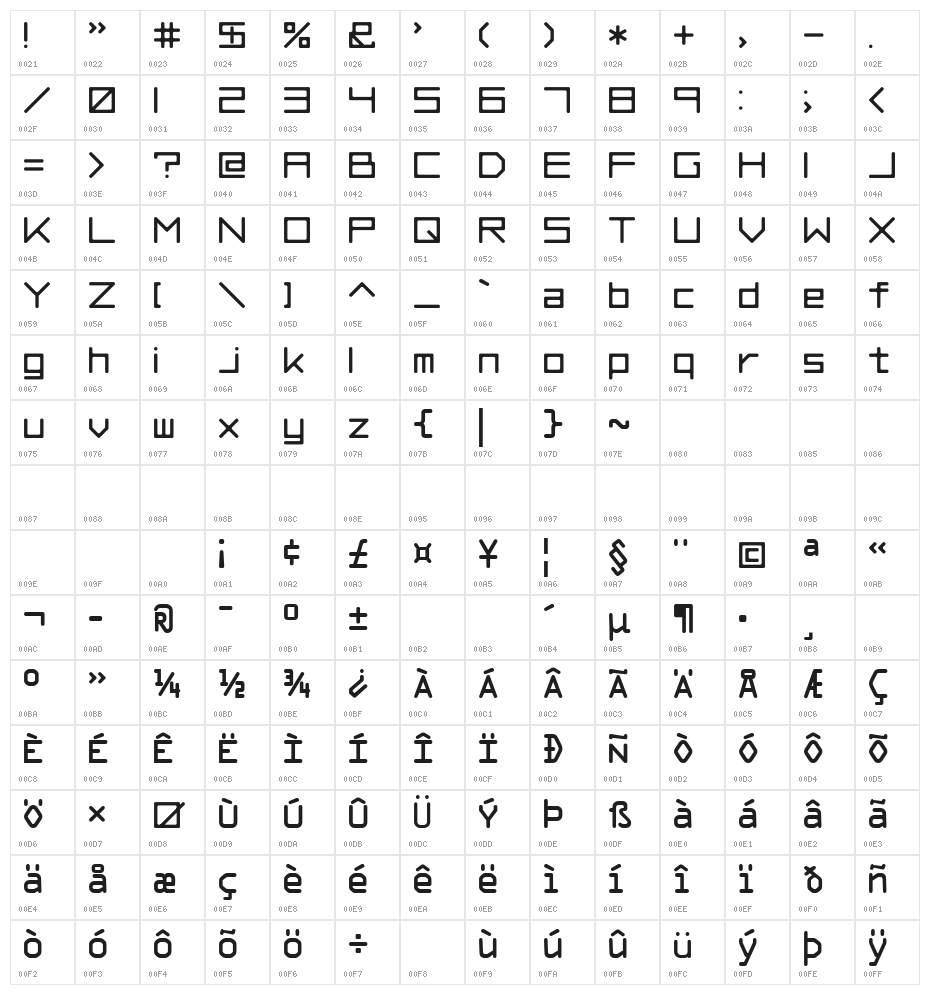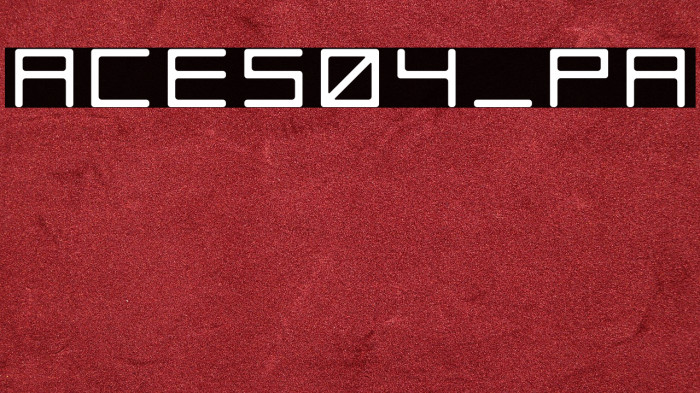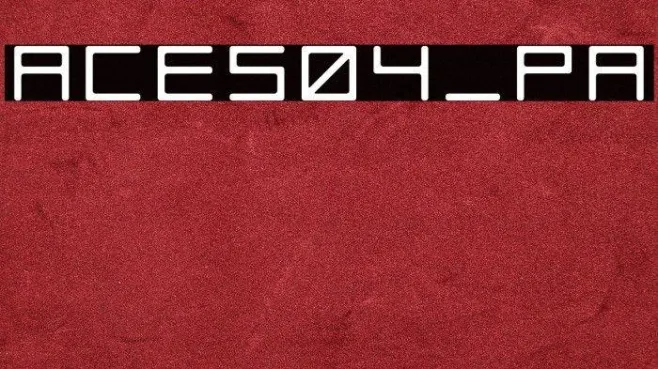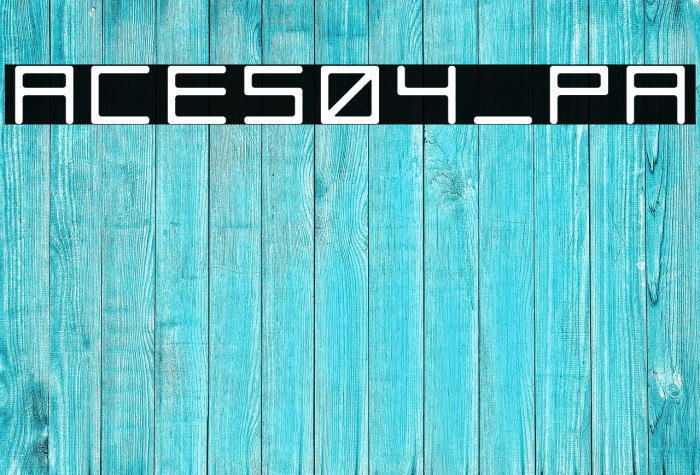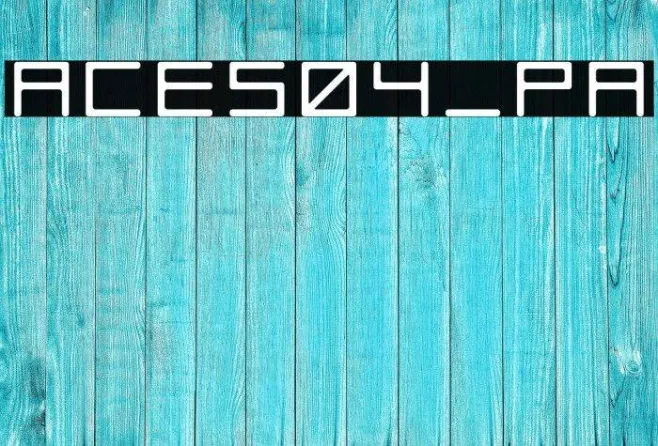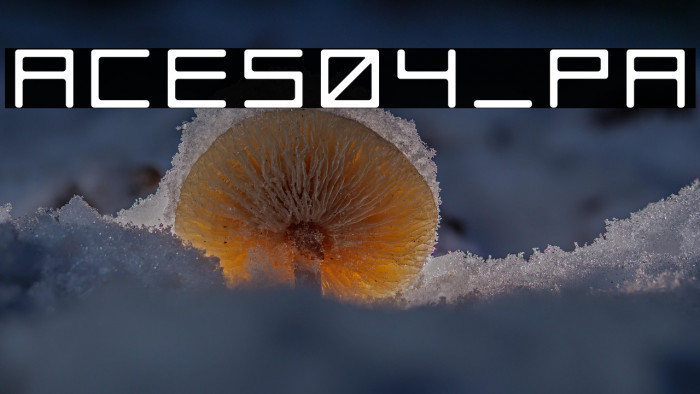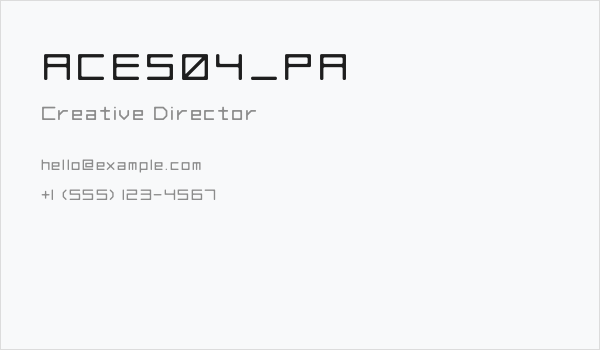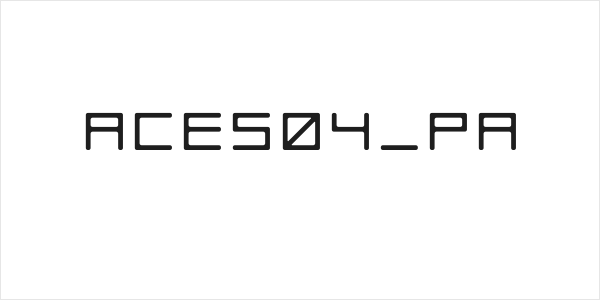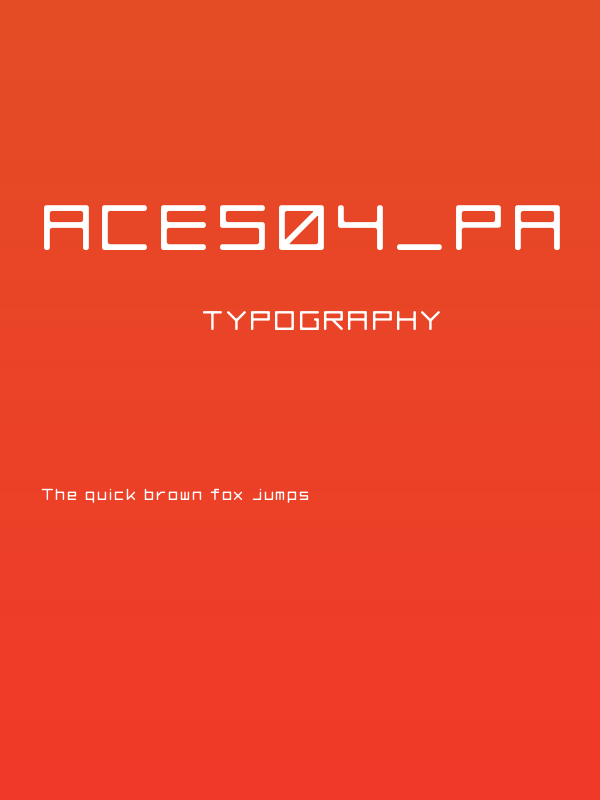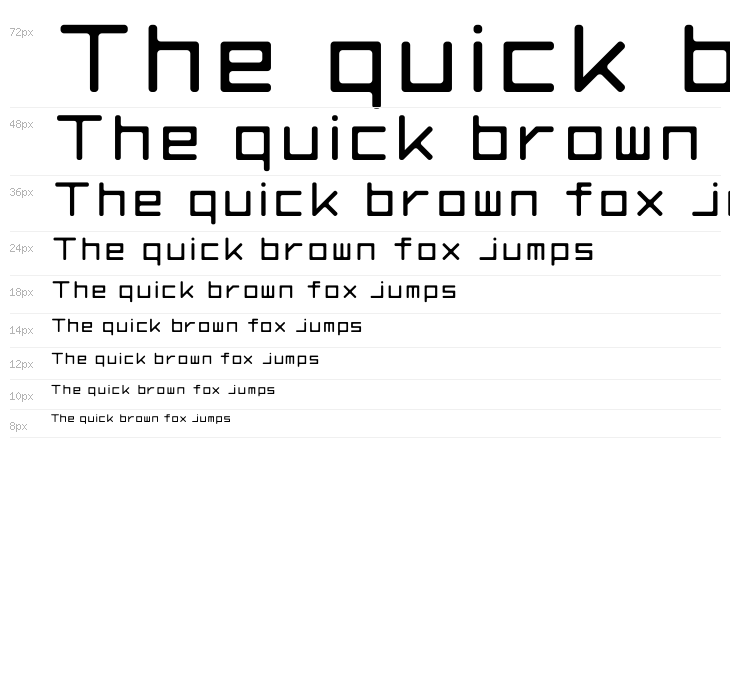
ACES04_PA Font
ACES04_PA Description
This font features a geometric and modern design with a distinct, futuristic aesthetic. The characters are constructed with uniform line thickness, creating a clean and minimalistic appearance. The uppercase and lowercase letters maintain a consistent style, with rounded corners and straight lines that give a sense of precision and clarity. The numerals and special characters follow the same design principles, ensuring a cohesive look across all elements. This font is well-suited for digital interfaces and projects that require a contemporary and tech-savvy feel.
| Use Case | Headlines, Logos, Digital Interfaces |
| Proposed Projects | Ideal for tech branding, digital interfaces, video game design, and futuristic-themed projects. |